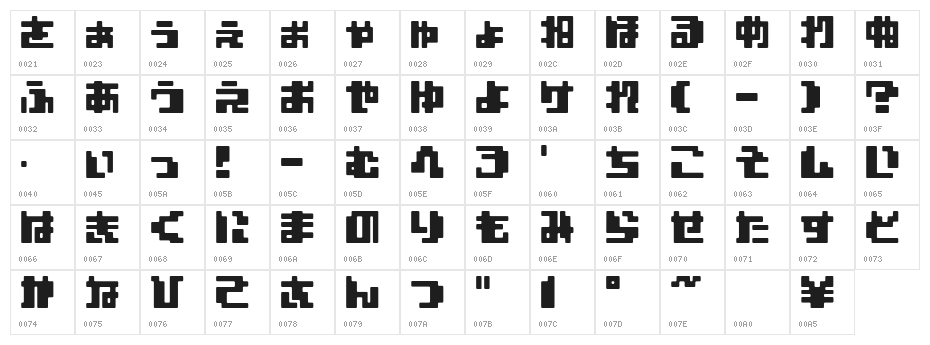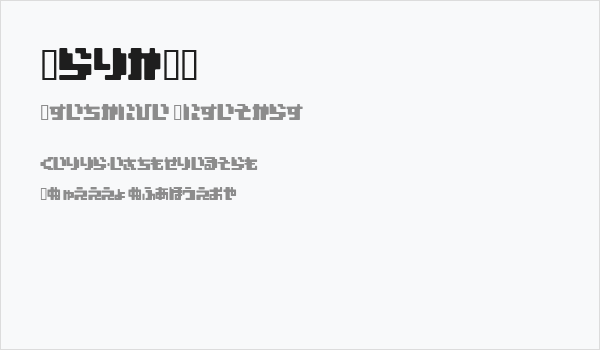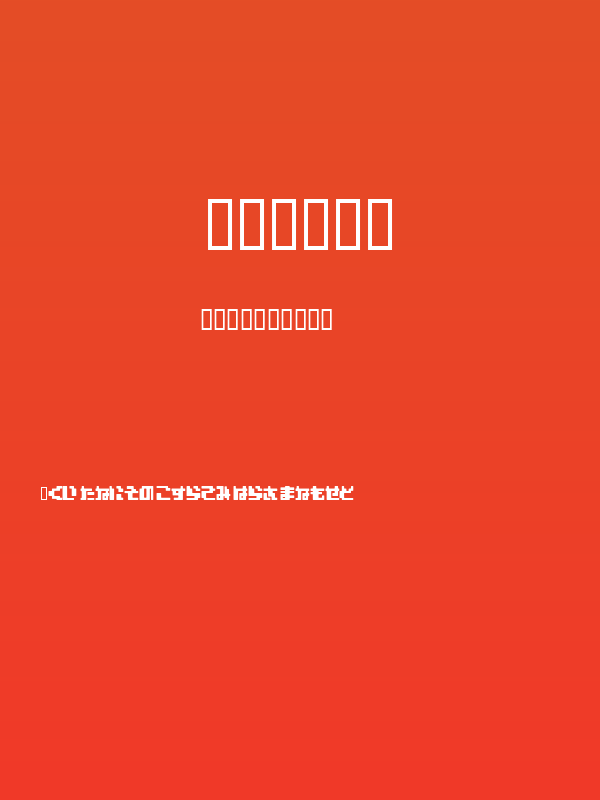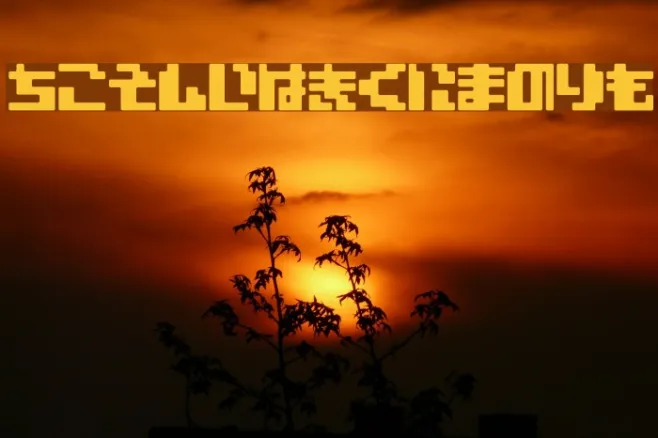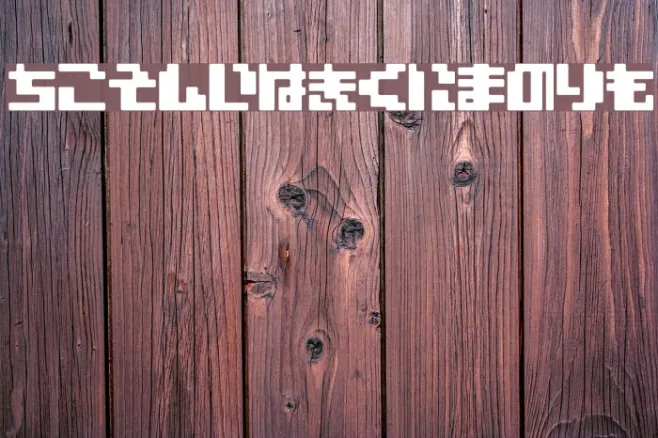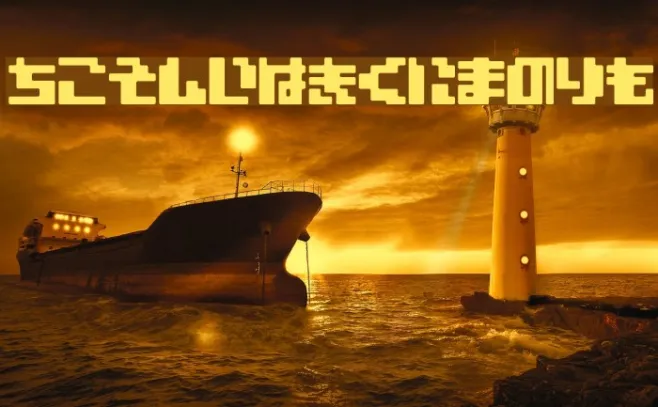
VoltHR Font
VoltHR Description
This font features a bold, geometric style with a strong emphasis on rectangular shapes and sharp edges. The characters are uniformly thick, creating a cohesive and impactful appearance. The uppercase letters are particularly striking, with a blocky, modern aesthetic that commands attention. The lowercase letters maintain the same geometric theme, offering a consistent look across the typeface. Numbers and special characters are designed to match the overall style, ensuring versatility in various applications. The font's design is both contemporary and assertive, making it suitable for projects that require a strong visual presence.
| Proposed Projects | Ideal for branding, posters, headlines, and any design requiring a bold statement. |